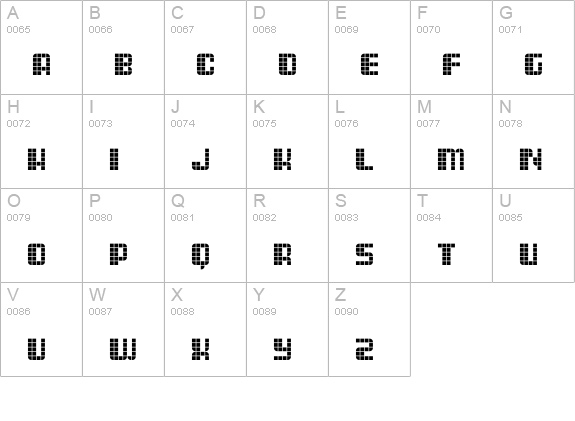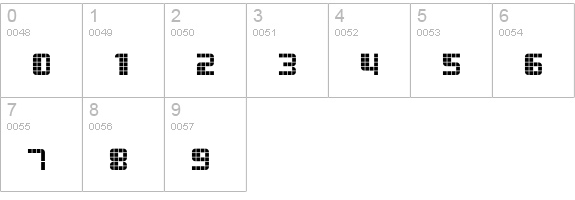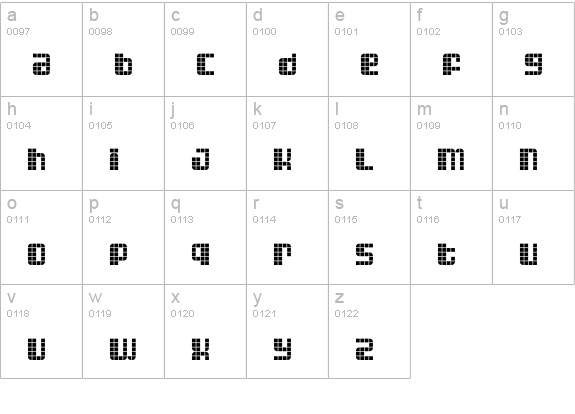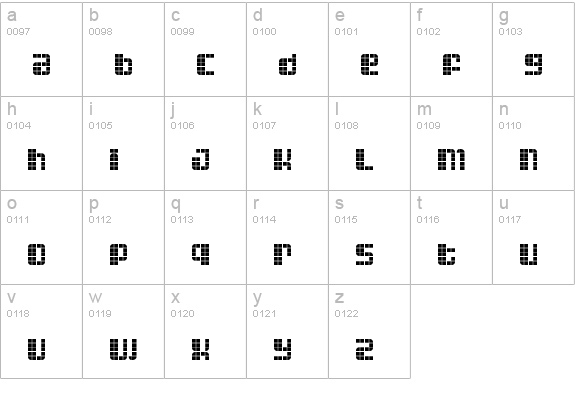
Astronaut III Font Details
Astronaut III font is a modern and futuristic typeface that beautifully captures the essence of space exploration and innovation. With sleek lines and a bold, commanding presence, this font is perfect for adding a touch of sophistication to your designs. Whether you're working on a sci-fi project, a technology website, or a futuristic brand identity, Astronaut III font will elevate your work to new heights. Best of all, Astronaut III font is available for free download at FontsMarket.com. So you can bring the power and elegance of this font into your projects without breaking the bank. Don't miss out on the opportunity to add this stunning typeface to your collection today!